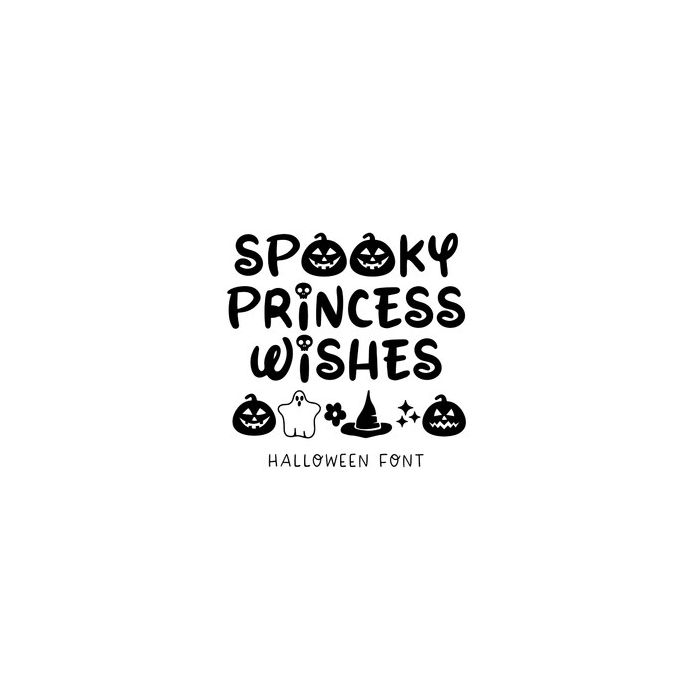
Spooky Princess Wishes is a spooky and cute princess Halloween font. Find the extra Halloween characters by using the punctuation on your keyboard or your glyph panel.